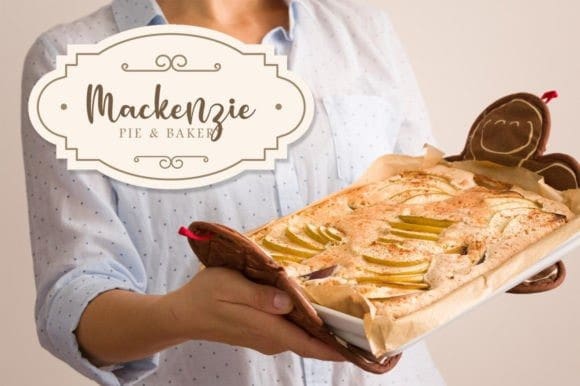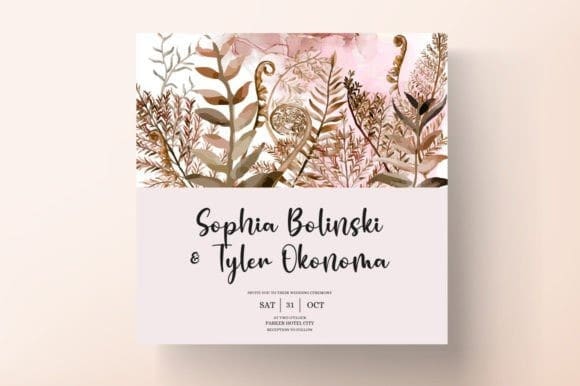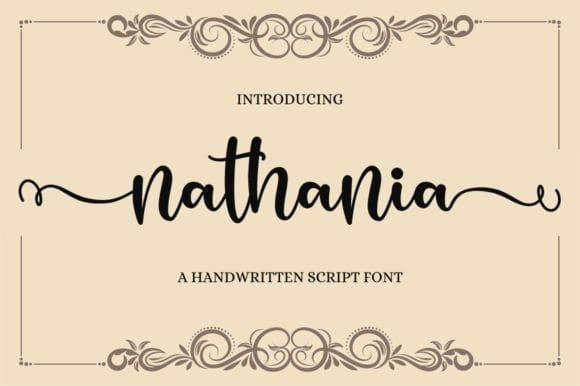
Nathania Script Font
Nathania Script Font, is a lovely and timeless handwritten font. It is the best choice for creating eye-catching logos, branding, and quotes. Nathania is PUA-encoded, which means you can access all of the glyphs and swashes with ease!